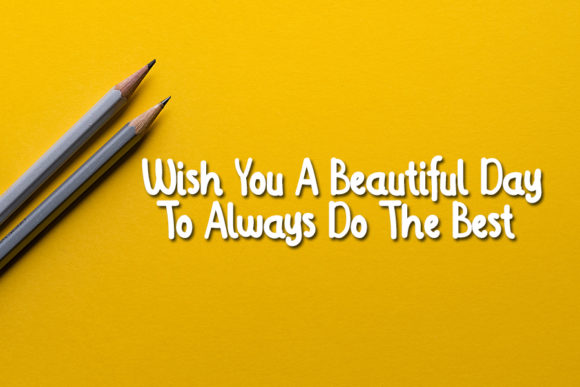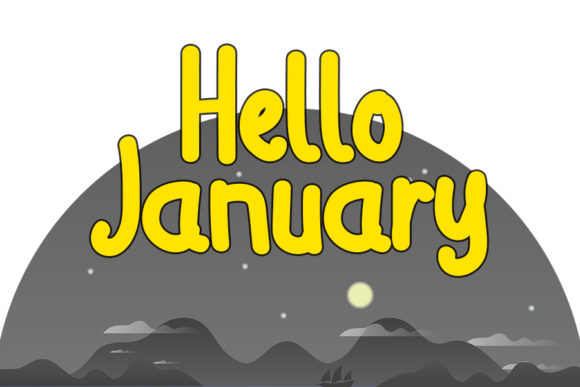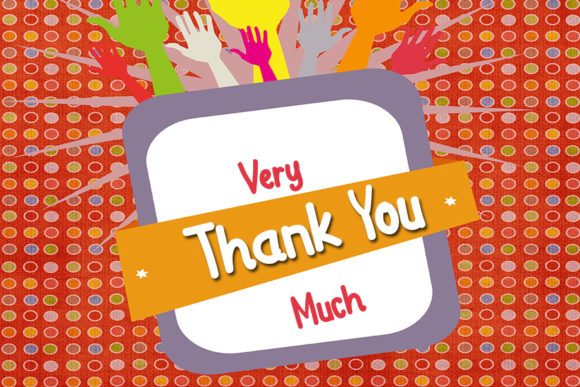
Cartoon Movie Font: Elevate Your Designs with a Touch of Whimsy
Are you a designer or crafter looking for a font that can add a dash of excitement and playfulness to your creations? Look no further than Cartoon Movie Font! This stunning display font is perfect for anyone who wants to infuse their designs with a sense of fun and adventure. In this article, we’ll dive into the world of Cartoon Movie Font, exploring its features, benefits, and uses, as well as provide tips on how to make the most of this versatile font.
What is Cartoon Movie Font?
Cartoon Movie Font is a beautiful and attractive display font that is simple and easy to use. Its unique design makes it perfect for a wide range of craft designs, from posters and flyers to logos and branding materials. Whether you’re a seasoned designer or a DIY crafter, Cartoon Movie Font is an excellent choice for anyone looking to add a touch of whimsy to their creations.
Key Features of Cartoon Movie Font
- Unique and Eye-Catching Design: Cartoon Movie Font boasts a distinctive design that is sure to grab attention. Its bold lines, playful curves, and quirky charm make it perfect for designs that require a dash of personality.
- Ease of Use: Despite its complex design, Cartoon Movie Font is surprisingly easy to use. Whether you’re a beginner or an experienced designer, you’ll find it simple to incorporate into your projects.
- Versatility: Cartoon Movie Font is incredibly versatile, making it suitable for a wide range of design applications, from children’s products to adult-oriented materials.
- High-Quality Output: When used in your designs, Cartoon Movie Font produces high-quality output that is sure to impress.
Benefits of Using Cartoon Movie Font
So, why should you choose Cartoon Movie Font for your designs? Here are just a few benefits of using this amazing font:
- Adds a Touch of Whimsy: Cartoon Movie Font brings a sense of playfulness and fun to your designs, making them more engaging and attention-grabbing.
- Enhances Creativity: With Cartoon Movie Font, you can unleash your creativity and experiment with new design ideas and concepts.
- Perfect for Kids’ Designs: The font’s playful and cartoonish nature makes it an excellent choice for designs aimed at children, such as kids’ party invitations, children’s books, and educational materials.
- Great for Logos and Branding: Cartoon Movie Font can also be used to create memorable logos and branding materials that stand out from the crowd.
Tips for Using Cartoon Movie Font
To get the most out of Cartoon Movie Font, here are some tips to keep in mind:
- Experiment with Colors: Cartoon Movie Font looks great in a variety of colors, so don’t be afraid to experiment and find the perfect hue for your design.
- Mix and Match with Other Fonts: For added visual interest, try pairing Cartoon Movie Font with other fonts to create a unique and eye-catching design.
- Use it for Headlines and Titles: Cartoon Movie Font is perfect for headlines and titles, where its bold and playful design can really shine.
- Keep it Simple: While Cartoon Movie Font is a complex design, it’s best to keep your overall design simple and uncluttered to let the font really stand out.
In conclusion, Cartoon Movie Font is an exceptional display font that can add a touch of magic to your designs. Its unique design, ease of use, and versatility make it an excellent choice for designers and crafters of all levels. Whether you’re creating materials for kids or adults, Cartoon Movie Font is sure to bring a smile to your audience’s faces. So why wait? Download Cartoon Movie Font today and start elevating your designs with a dash of whimsy and fun!